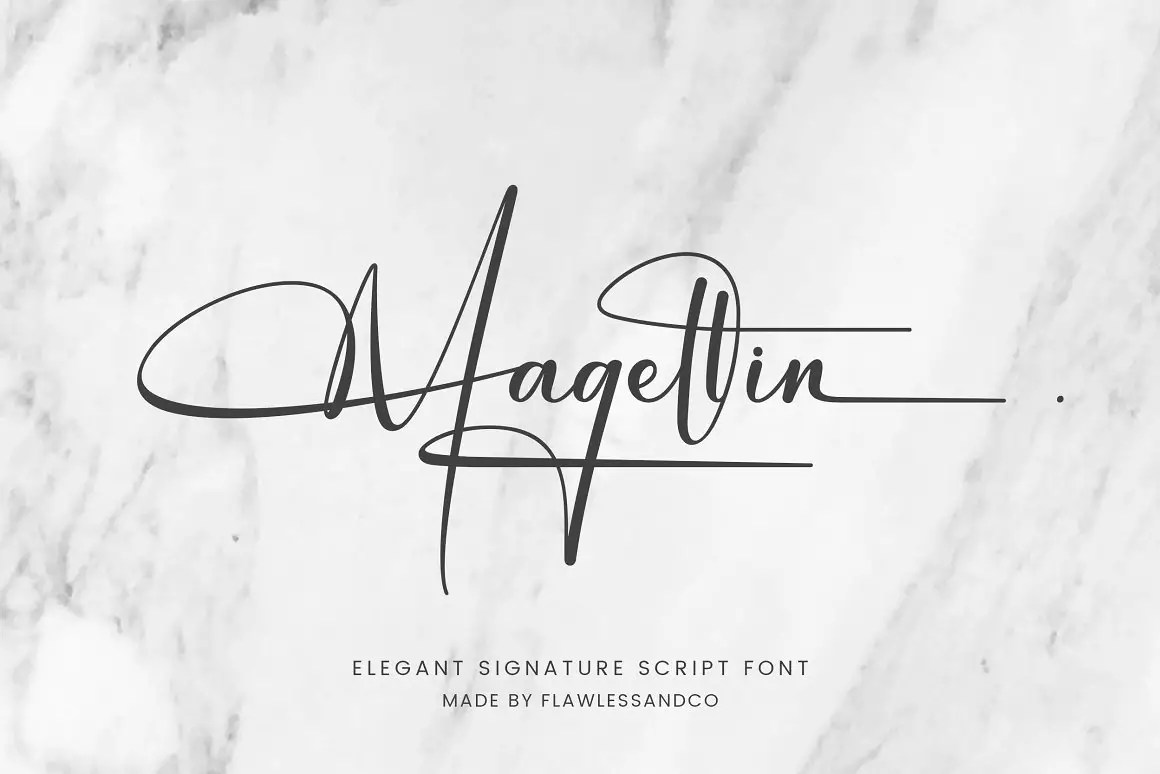
Introducing the enchanting “Magellin” – a captivating signature script font that effortlessly unlocks the allure of elegance and sophistication, infusing your designs with a timeless charm and graceful style.
Crafted with fluid lines and a touch of timeless charm, “Magellin” is meticulously designed to convey a sense of refined elegance and a uniquely personal touch to your creative projects.
Elevate your designs with the exquisite details and intricate strokes of “Magellin,” making it the perfect choice for those seeking a font that exudes sophistication.
Magellin Script Font